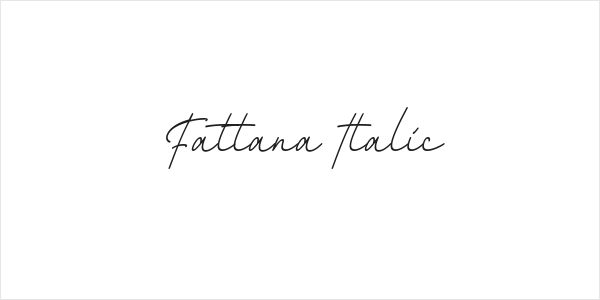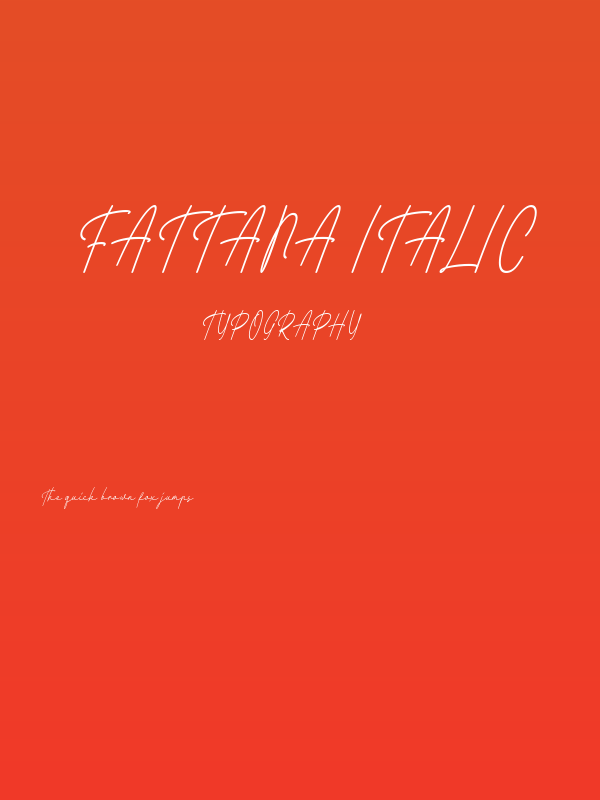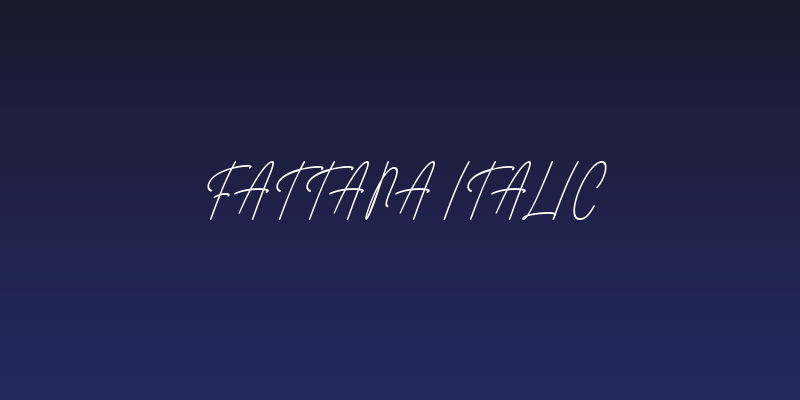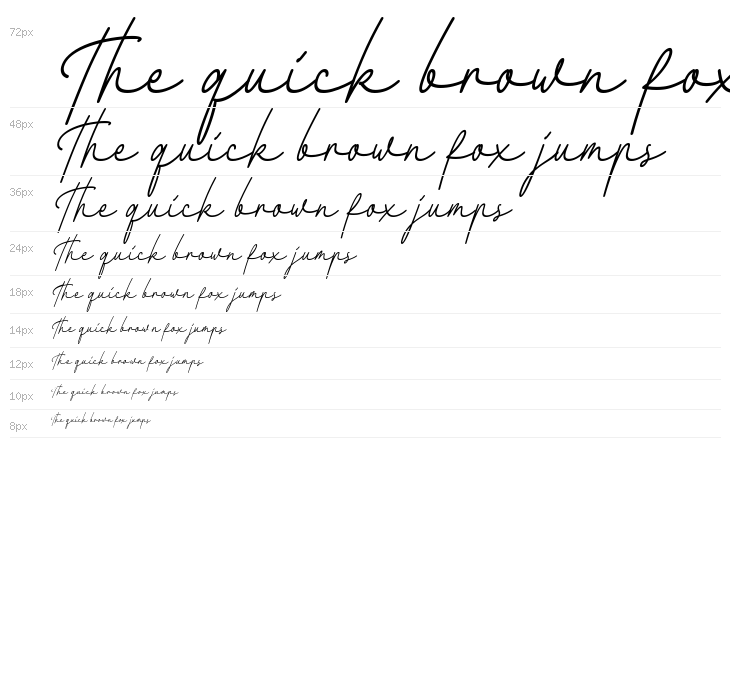
Fattana Italic Font
Fattana Italic Description
This elegant script font features a flowing, cursive style with a natural, handwritten appearance. The characters are connected smoothly, creating a continuous and fluid look. The strokes are thin and delicate, adding a sense of sophistication and grace. The uppercase letters are slightly taller and more pronounced, while the lowercase letters maintain a consistent baseline, enhancing readability. The numerals and special characters are designed to match the overall aesthetic, ensuring a cohesive appearance across all text elements.
| Proposed Projects | Ideal for wedding invitations, greeting cards, personal branding, and elegant packaging designs. |